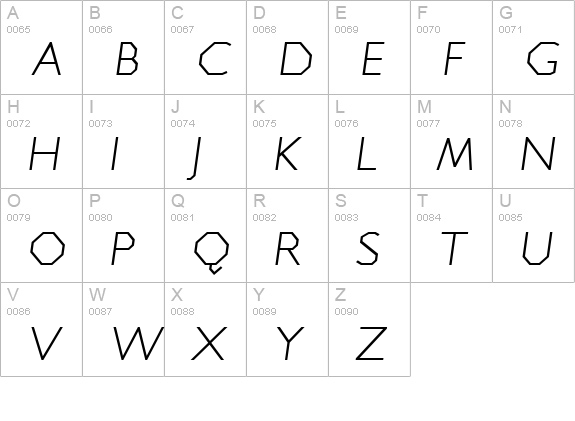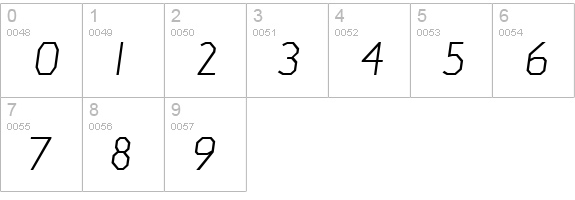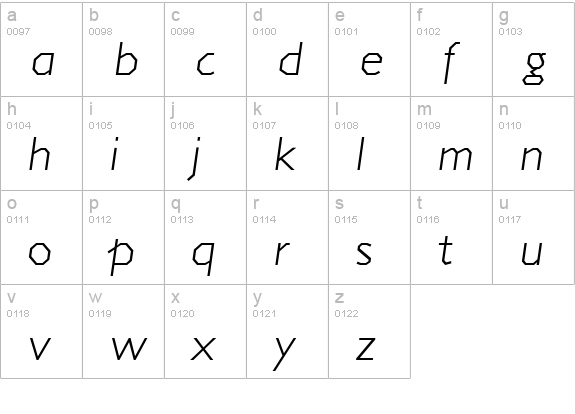
Jillican Light Italic is a refined, elegant, italic variant in the Jillican typeface family \xE2\x80\x94 well suited to elegant body text, refined sub-headings, and luxury branding.
Introducing Jillican Light Italic font, a sleek and modern typeface perfect for adding a touch of elegance to your design projects. This font features a delicate and stylish italic style that exudes sophistication and charm. With its clean lines and subtle curves, Jillican Light Italic is versatile and well-suited for a wide range of applications, from branding and advertising to editorial design and more. Its light weight adds a touch of finesse, making it ideal for creating a sophisticated and polished look. Best of all, Jillican Light Italic is available for free download at FontsMarket.com. Whether you are a designer looking to elevate your projects or a business owner seeking a fresh new look for your branding, this font is a fantastic choice. Don't miss out on the opportunity to add this stylish and elegant typeface to your collection. Download Jillican Light Italic today and let your creativity shine!